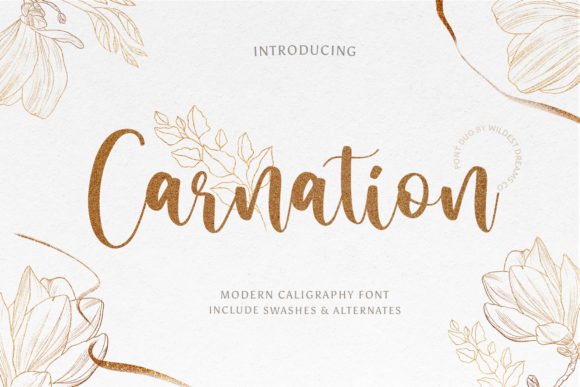
The Perfect Blend of Whimsy and Elegance: Introducing Carnation Font
Have you ever been in the middle of a design project, staring blankly at a blank canvas, and suddenly, the perfect font pops into your head? That’s exactly what happened to us when we discovered the Carnation Font. Its beautiful, handwritten style instantly adds a touch of charm and sophistication to any design.
Whether you’re working on a wedding invitation, a children’s book, or a brand identity, Carnation Font is the perfect addition to bring your design to life. This lovely duo-styled handwritten font is not just aesthetically pleasing, but also versatile and easy to use. With its unique blend of elegance and playfulness, Carnation Font is a valuable tool for designers looking to add a personal touch to their work.
Carnation Font Key Features
- Unique Characteristics: This font features a unique, elegant design with intricate details and subtle flourishes, making it suitable for high-end branding, packaging, and editorial projects.
Carnation Font Review
I’ve had the chance to work with the Carnation font, and here’s my honest take on it. ✨ One thing I appreciate is its unique flair – it’s got a certain whimsy to it that’s perfect for titles or headings where you want to add some visual interest. The font’s also surprisingly legible, even at smaller sizes, which is a big plus.
- Carnation is great for adding a touch of elegance to your design.
- It’s highly versatile and works well in various contexts, from digital to print.
- The font’s curves and flourishes make it perfect for creating eye-catching headings.
However, there are some limitations to consider ⚠️. One issue is that the font can feel a bit too ornate for certain types of content – if you’re working with dense blocks of text, Carnation might get lost in the noise. Additionally, some users might find the font’s irregularities distracting, especially at smaller sizes.
Overall, I’d say Carnation is a solid choice for designers who want to add some personality to their work. While it’s not perfect, its unique charm and versatility make it worth considering for the right project. Just be mindful of its limitations and use it judiciously to get the best results.
The Carnation Font is a beautiful, elegant script font that is perfect for adding a touch of sophistication to your designs. Some common use cases include:
– Luxury branding and packaging
– High-end marketing materials
Alternatives to Carnation Font